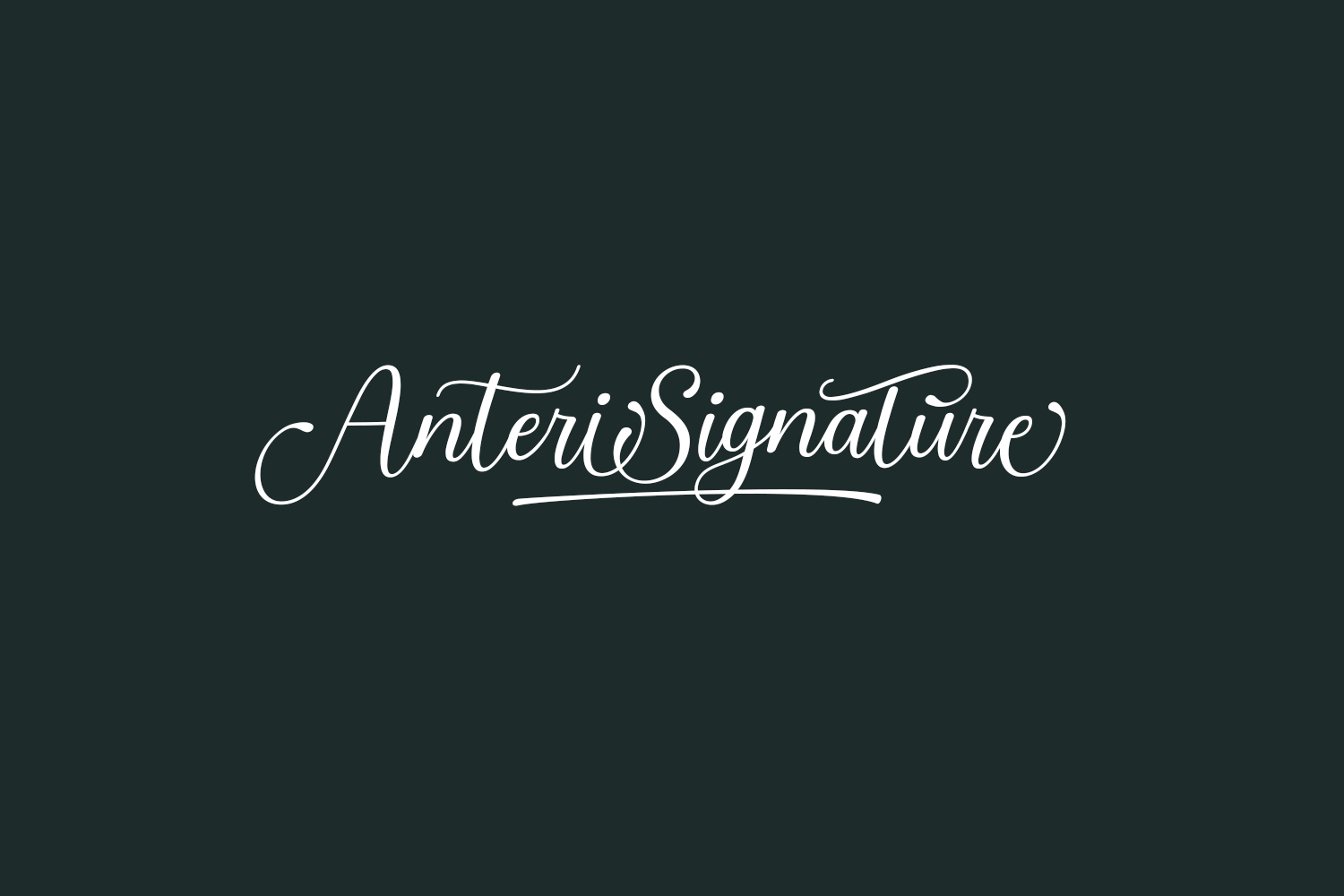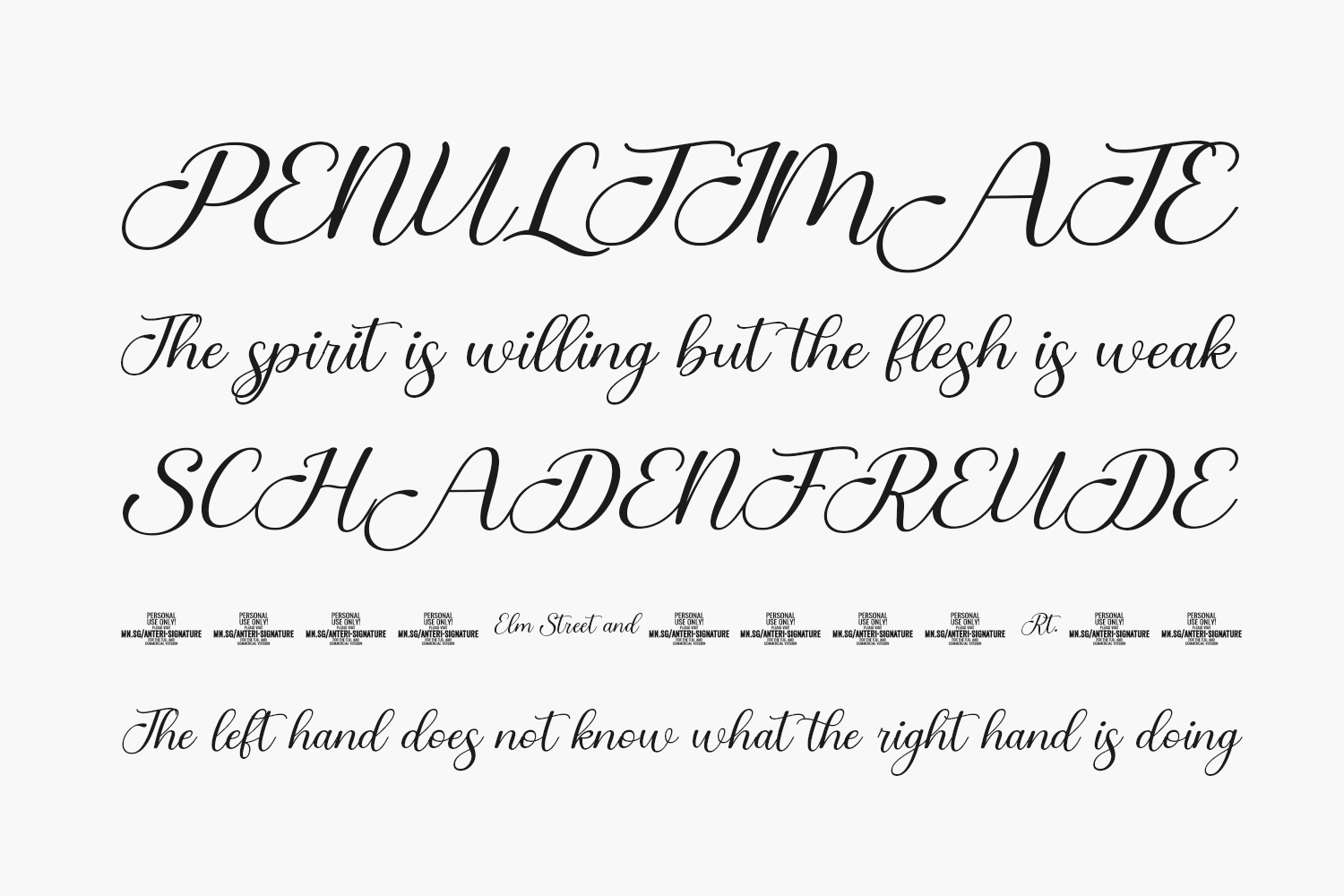
Anteri Signature Free Font is a stunning and elegant display script calligraphy typeface designed by designer Mans Greback. This font is characterized by its fluid, graceful strokes and delicate curves, giving it a distinct and luxurious look. The letters are designed to flow together seamlessly, creating a cohesive and harmonious appearance. Anteri Signature Free Font is ideal for use in high-end branding, invitations, packaging, and editorial design, as it exudes a sense of sophistication and refinement. Anteri Signature Free Font is a demo and free for personal use only. Please purchase the full version for commercial use.